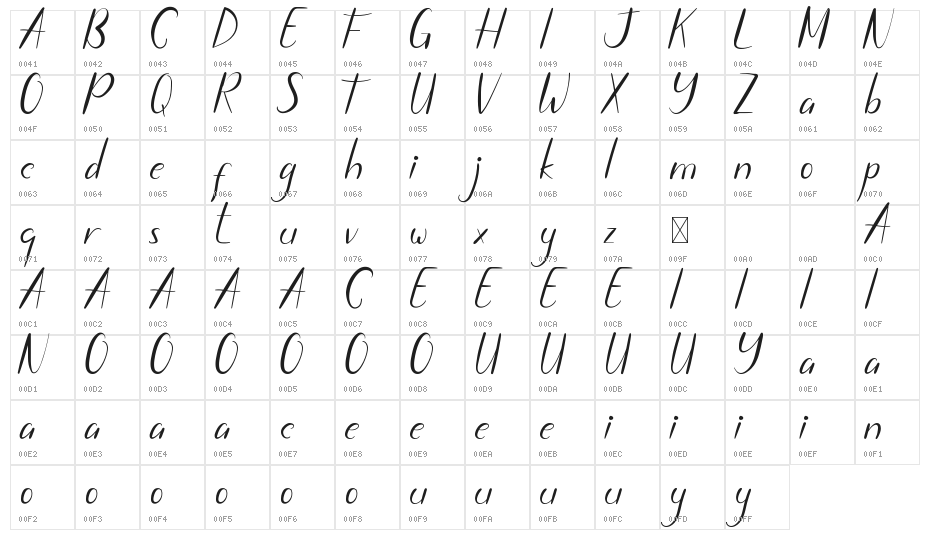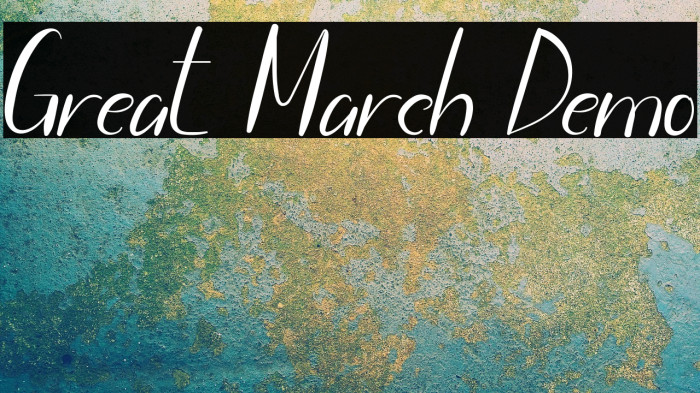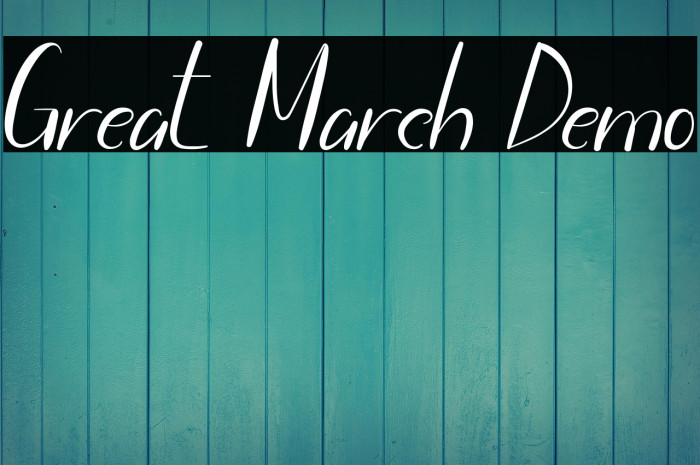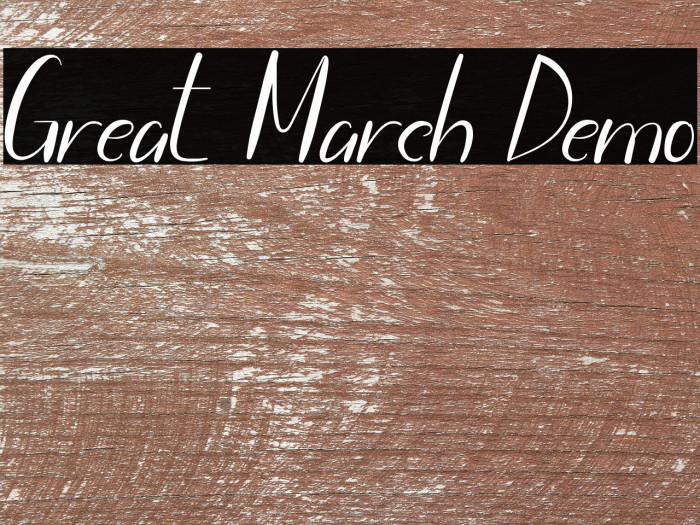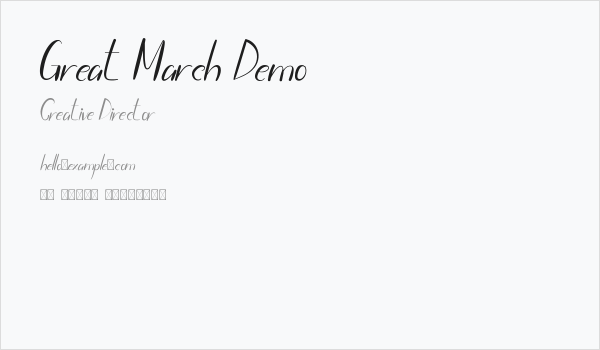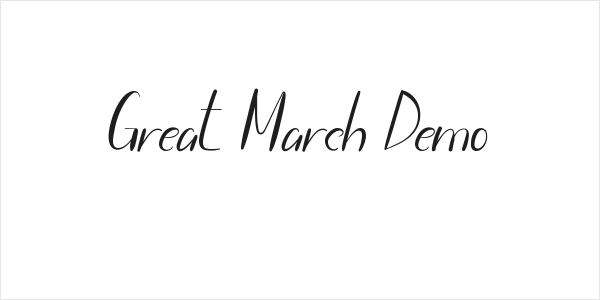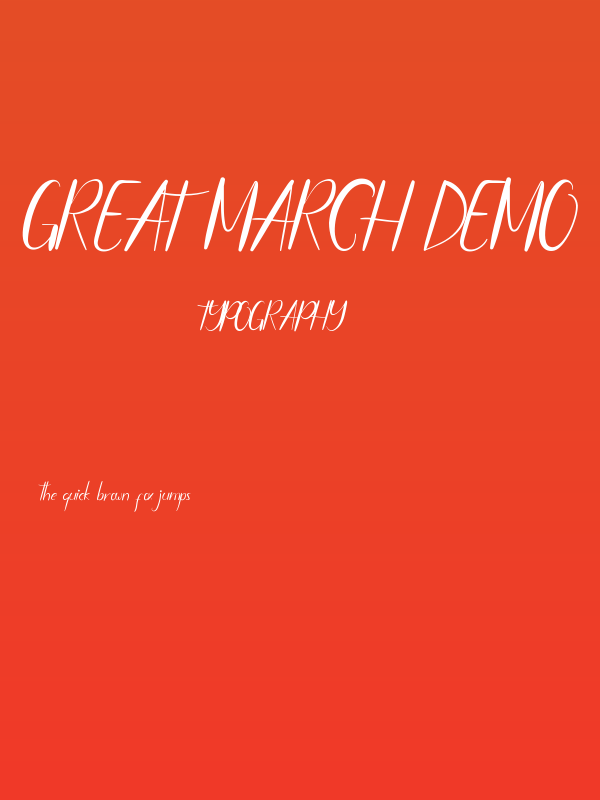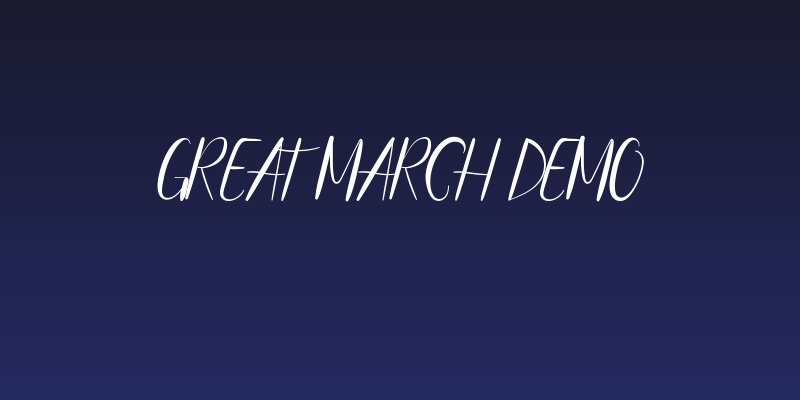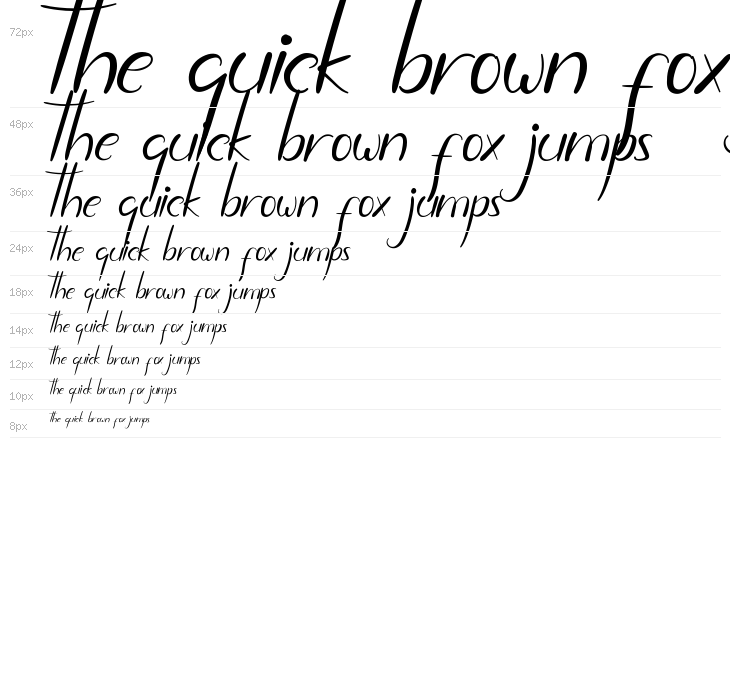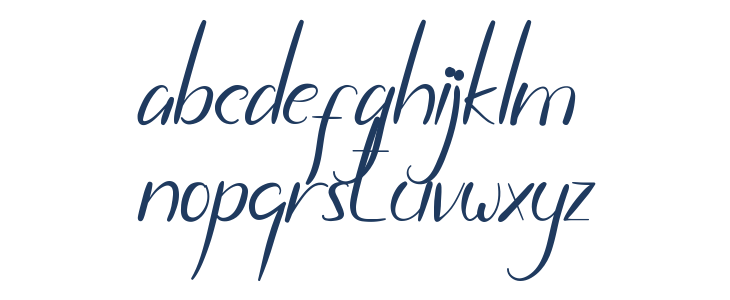
Great March Demo Font
Great March Demo Description
This font features a dynamic and flowing script style, characterized by its elegant, elongated letterforms and smooth, continuous strokes. The uppercase letters are tall and slender, with a graceful, slightly slanted appearance that adds a sense of movement and sophistication. The lowercase letters maintain a consistent style, with some characters featuring unique loops and swashes that enhance the font's decorative appeal. The overall design is both modern and artistic, making it suitable for creative and expressive projects. The font's high contrast between thick and thin strokes adds to its visual interest, while the character spacing is relatively tight, contributing to a cohesive and connected look.